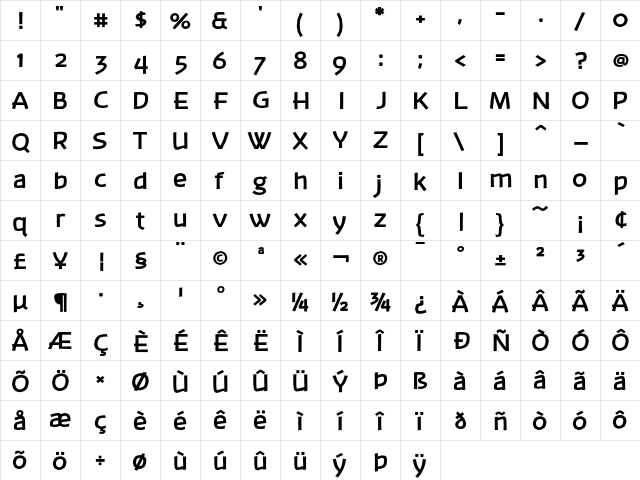
Banksia Bold
Design Context for Banksia Typeface
Banksia is a composed and adaptable typeface that performs quietly and consistently across a wide range of design contexts. The heavy weight commands attention and anchors typographic hierarchies.
Pro Tip: Use Banksia in both headline and body roles to test its range before committing to a single application.